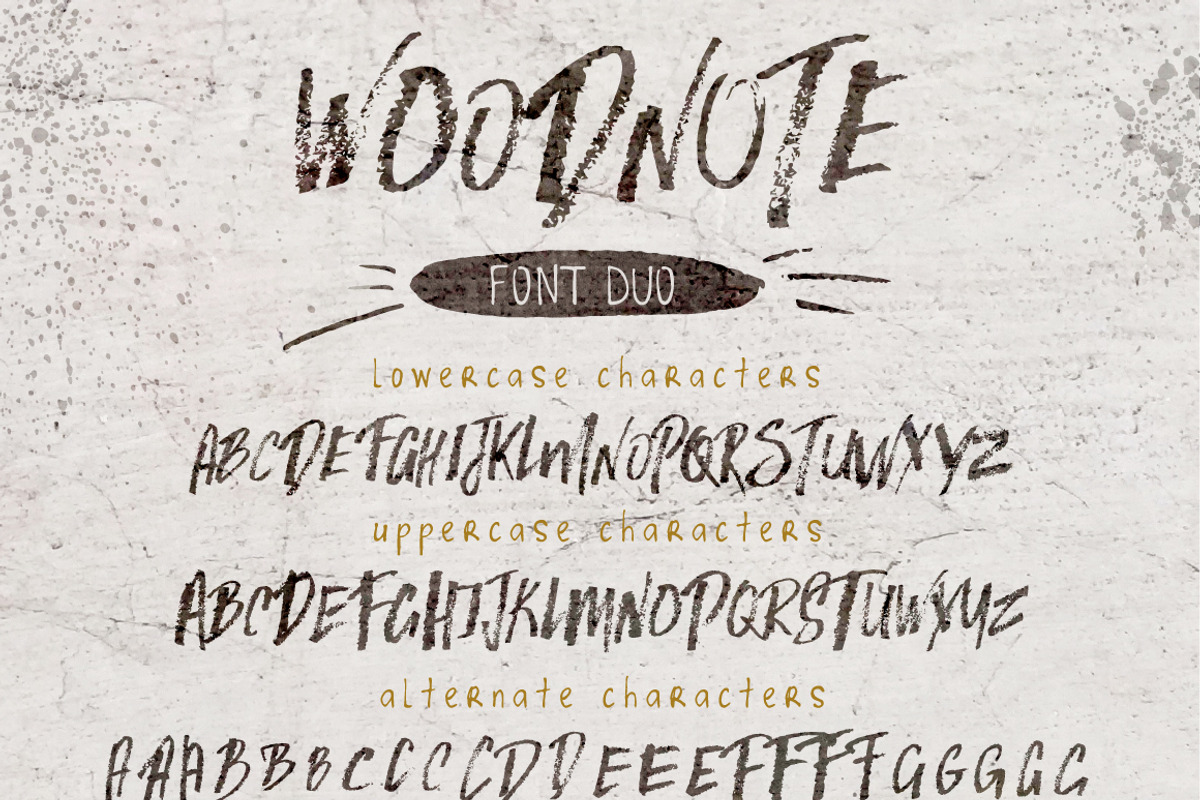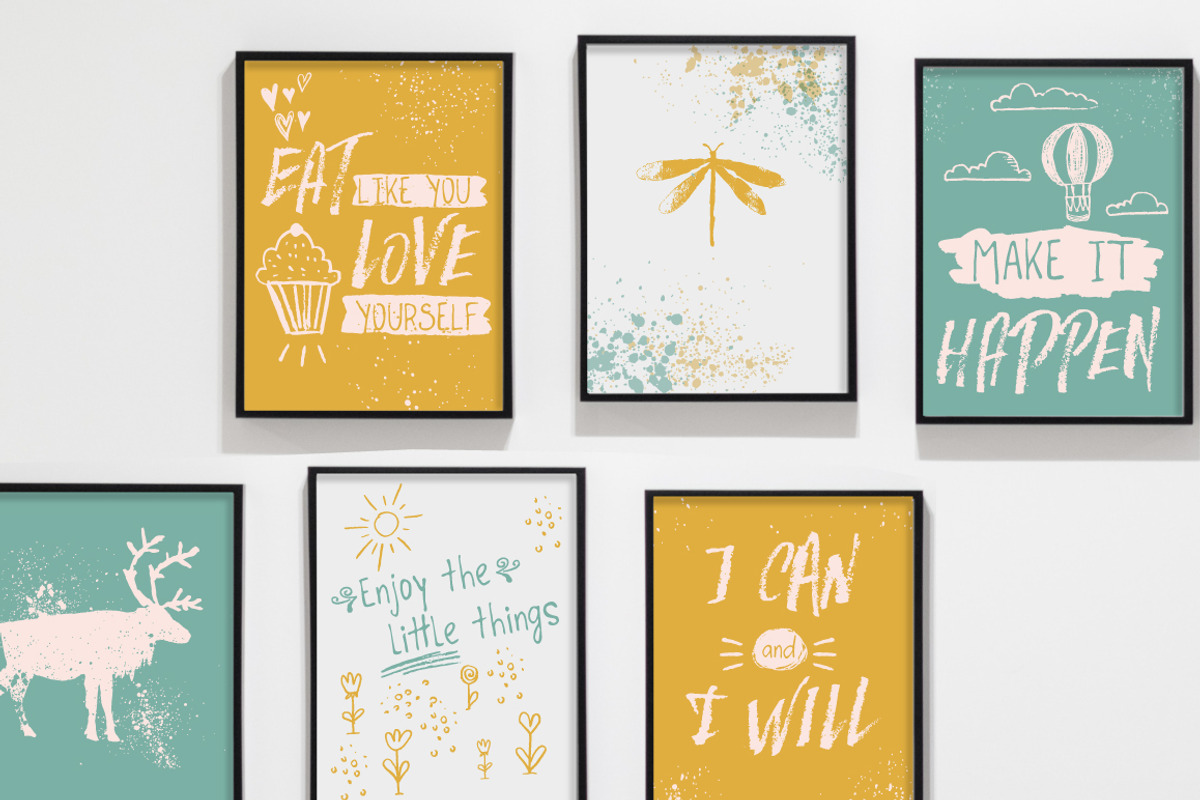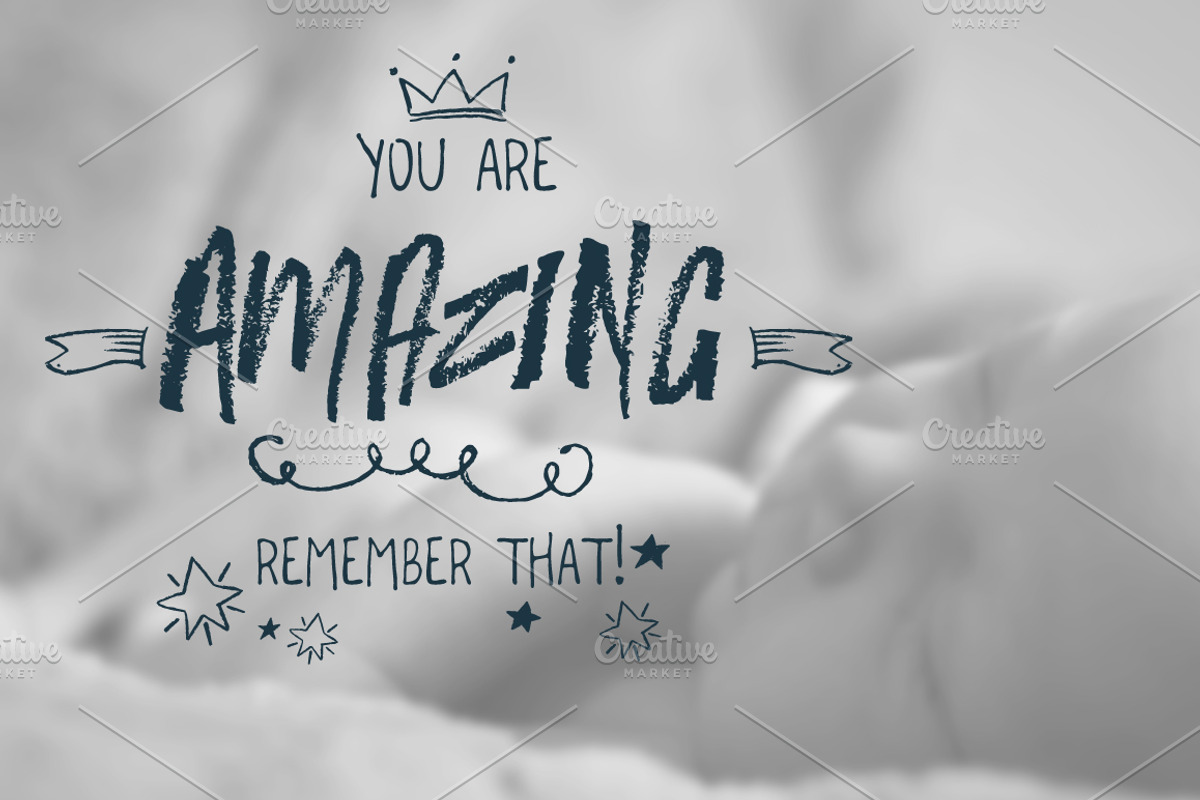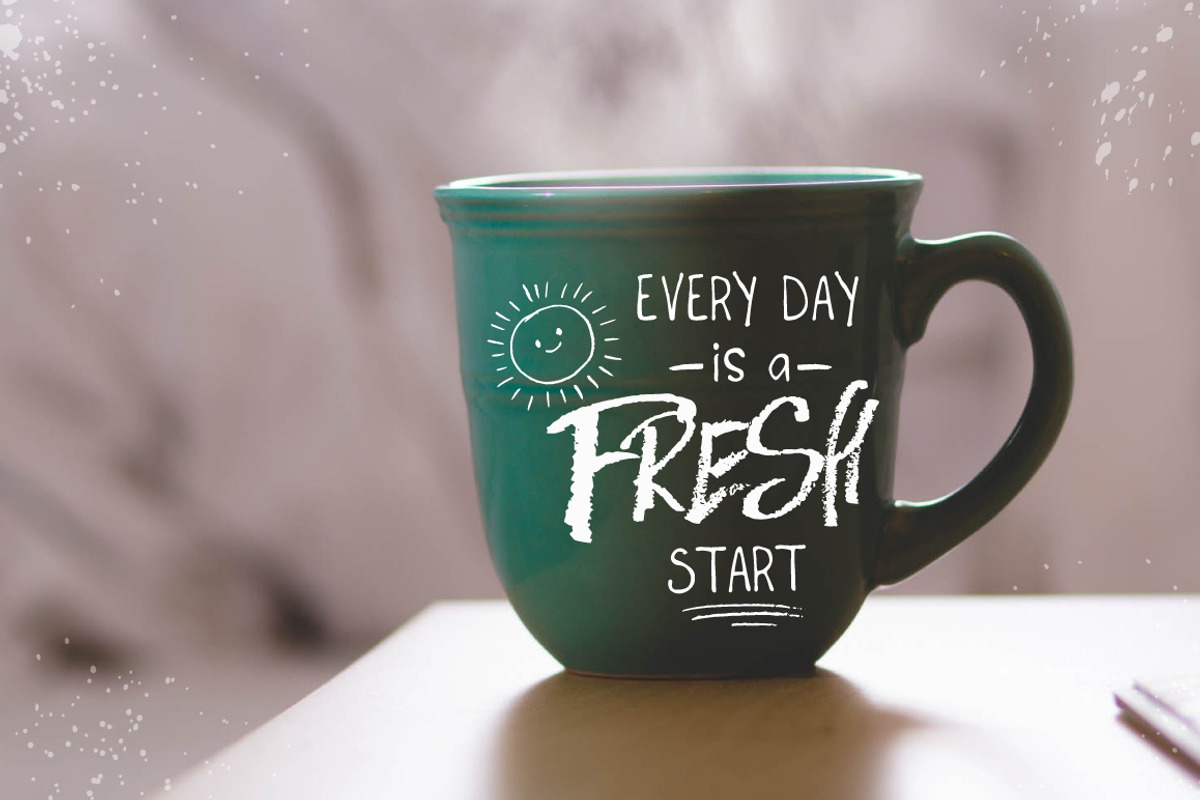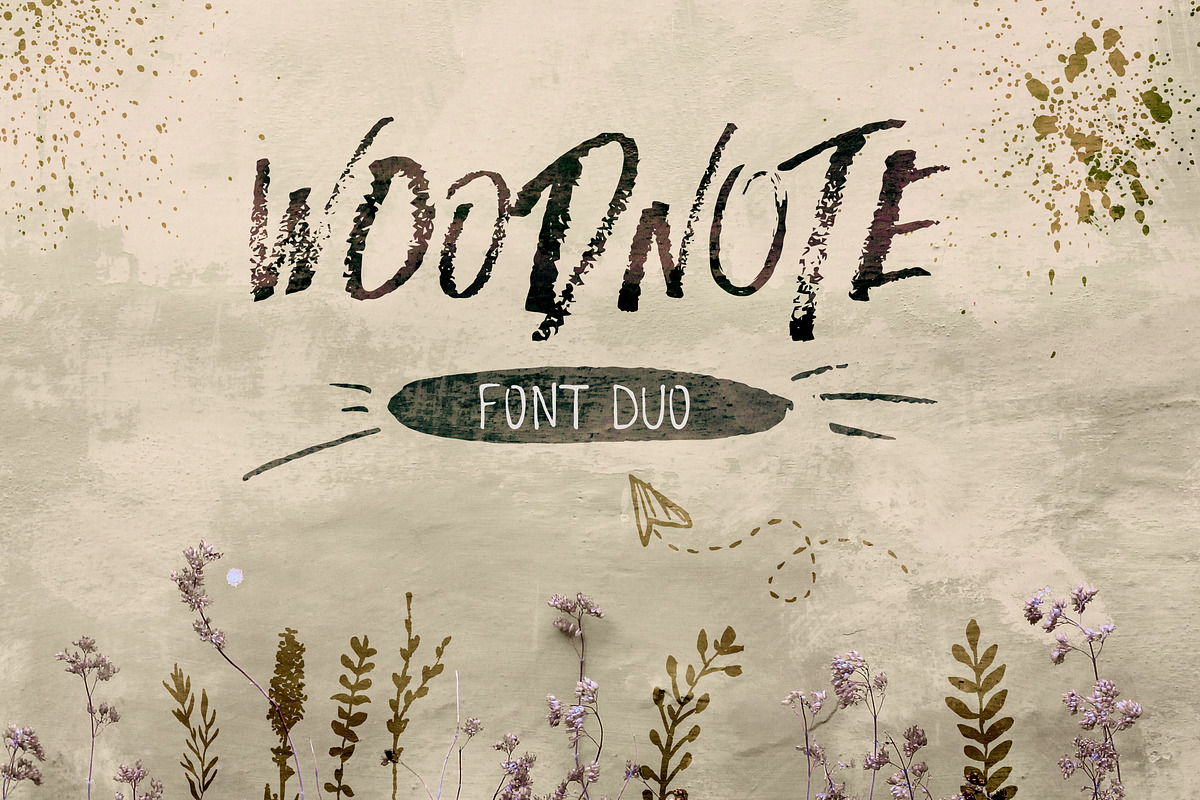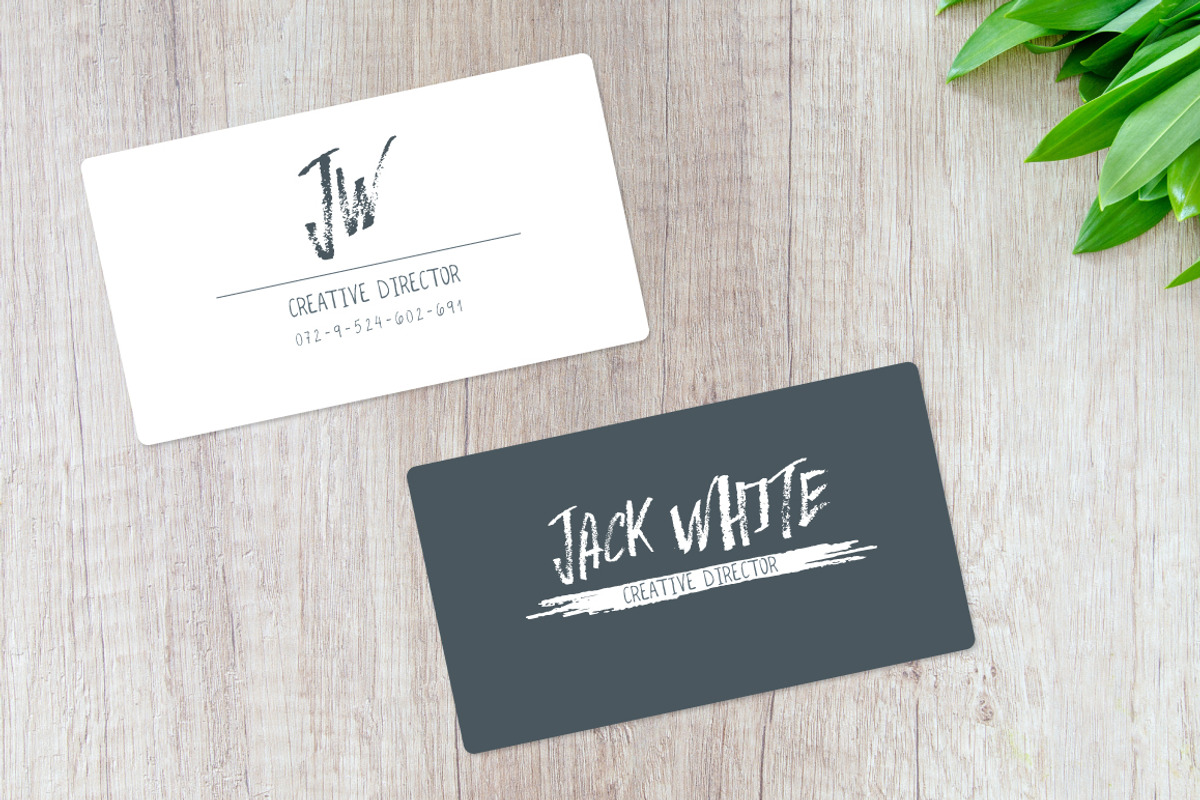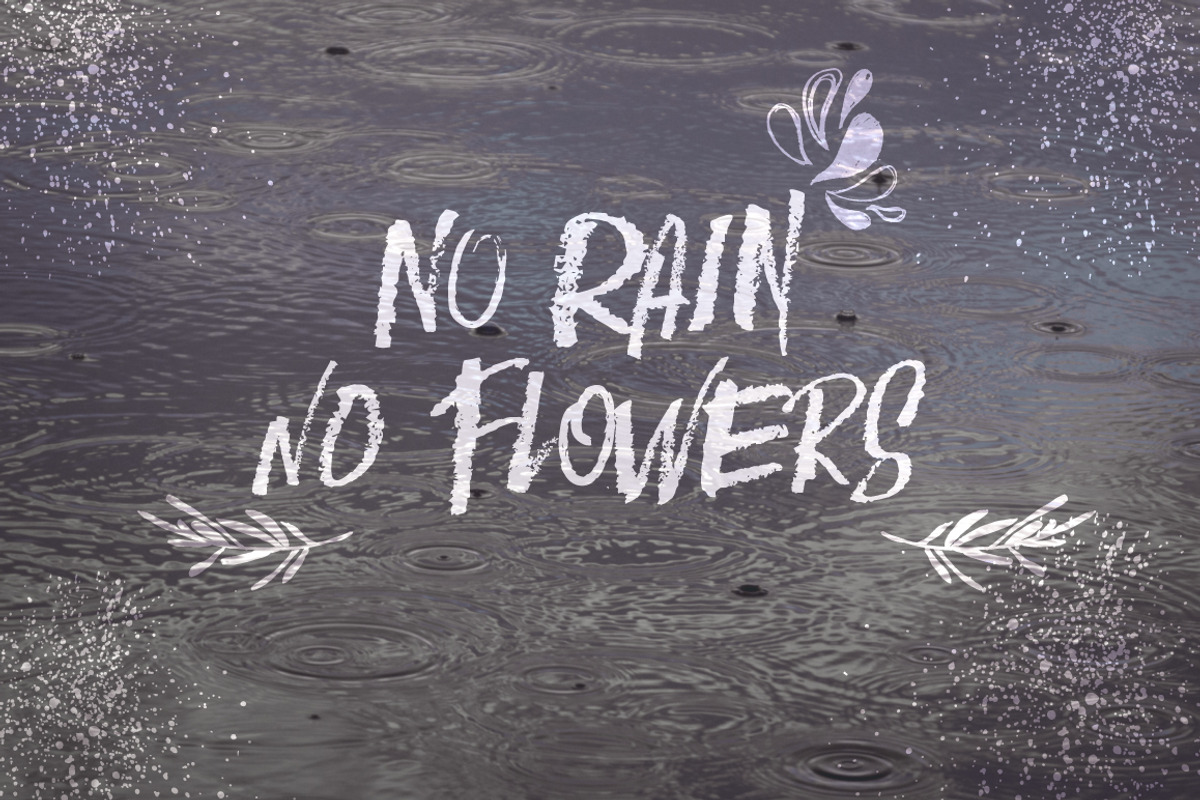
Woodnote Brushed Font
WOODNOTE is an energetic charcoal hand-written font. The rough brushed font comes in pair with a gentle pen WOODNOTE LIGHT font. WOODNOTE is promised to add a typographic fuss and roughness ; ideal for logos, apparel, quotes, product packaging, or anything which needs an attendance. Also there are over 300 hand drawn vector doodles and 10 splatters for adding depth and interest in you designs.
1.Woodnote - .OTF font file - hand-made, all-capitals brush font which has a complete set of alternate A-Z characters and alternate character which you can access through the glyfs panel. (Tip: Try mixing up both upper and lowercase characters in a word to achieve the best text layout).
2.Woodnote Light - .OTF font file - hand made, uppercase and lowercase characters.